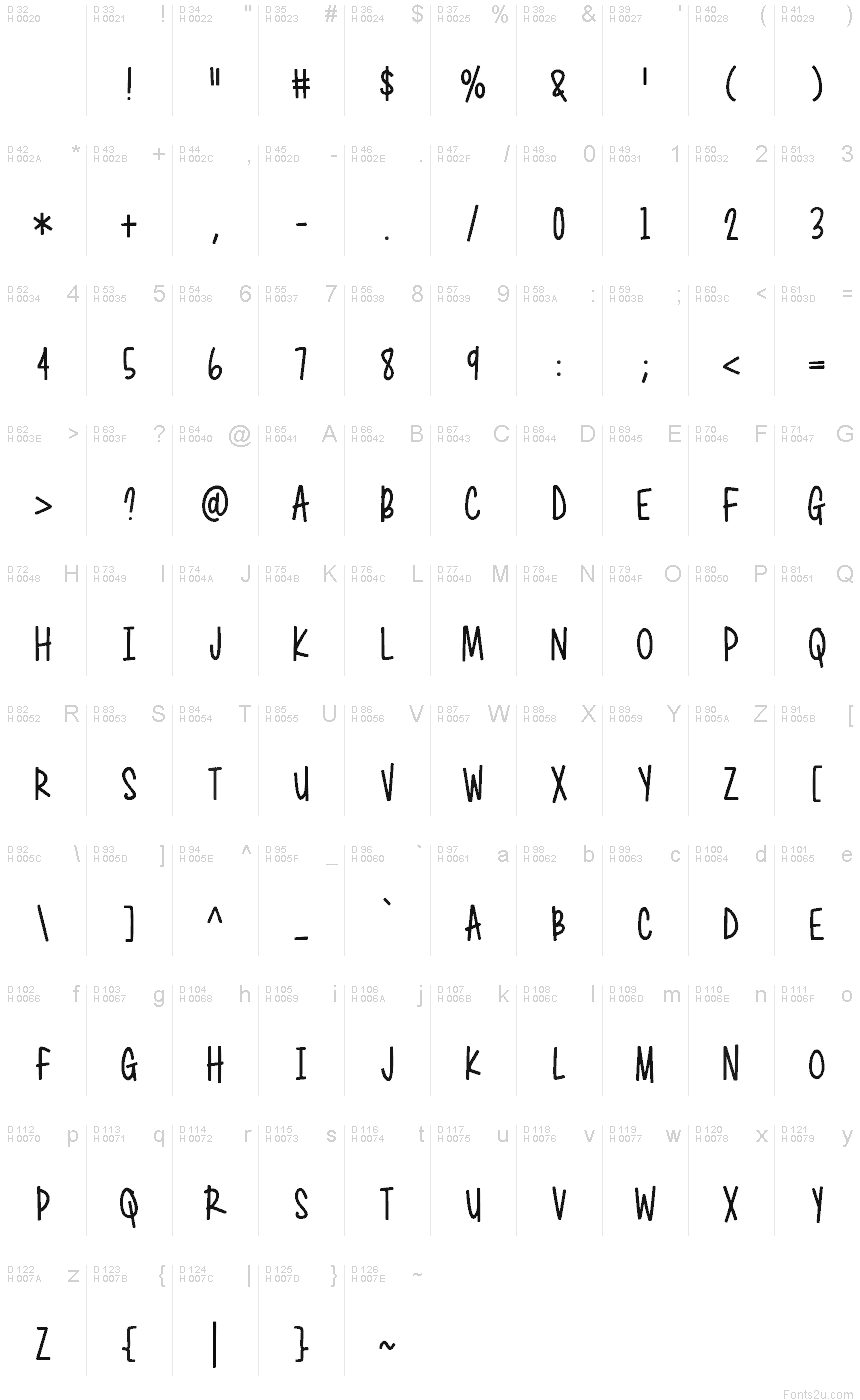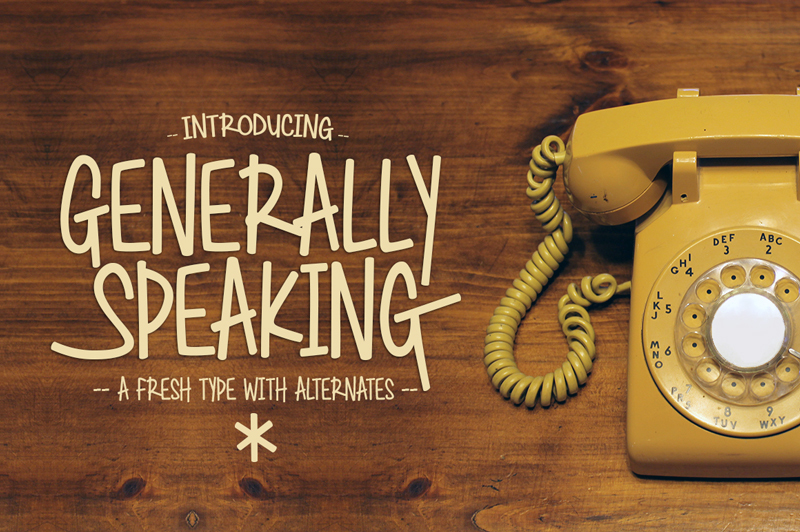
Generally Speaking
Have fun playing with alternates with Generally Speaking, a fresh all-caps font. Alternate between upper and lowercase letters for a custom, handprinted look. Also included is a bonus 'alternate endcaps' font to add a little something extra to the first and last letters of words and phrases!